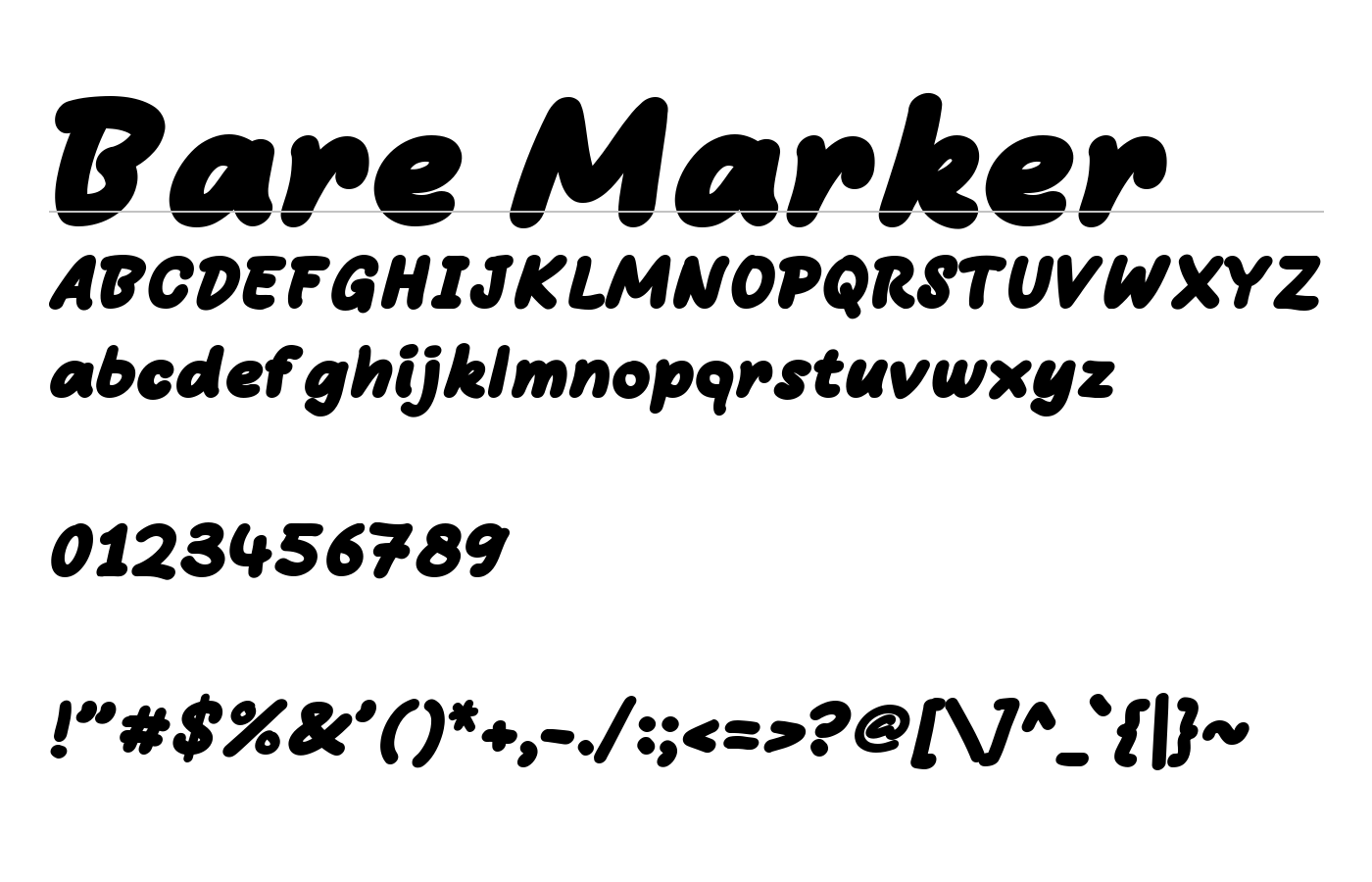
Bare Marker is a bold, playful script-style font that mimics the look of handwritten marker strokes. Its rounded, casual letterforms and slightly condensed width give it a friendly, approachable feel, making it ideal for creative projects, youthful branding, and informal headlines. This font works well wherever a lively, personal touch is needed to engage audiences with warmth and energy.
Bare Marker Font
About Bare Marker Font
| Font family | Bare Marker Font |
| Designer | Sugiyanto |